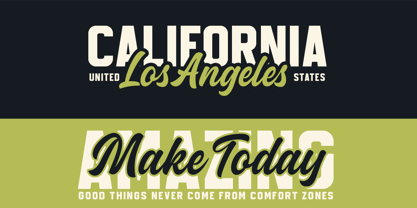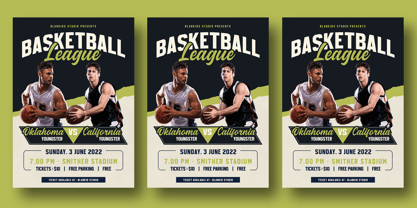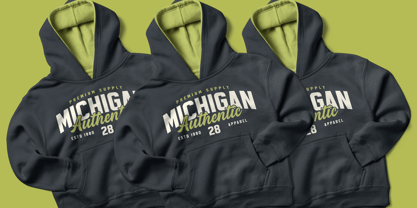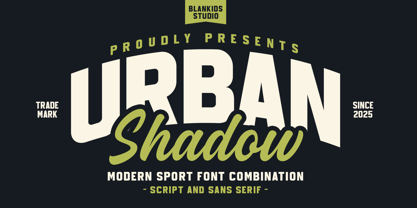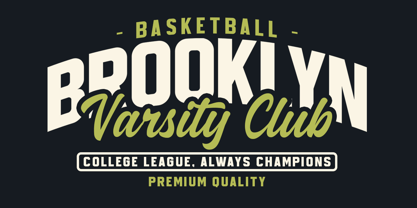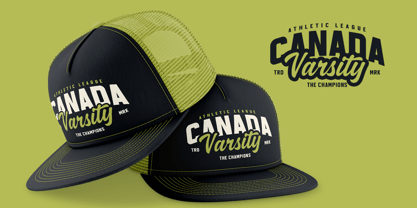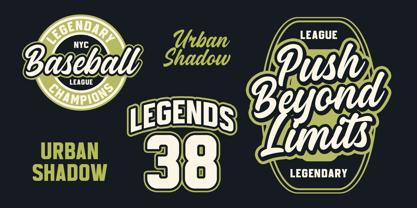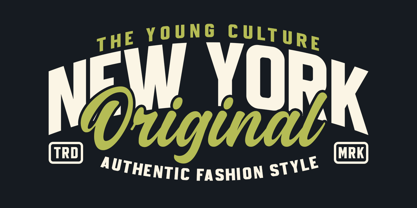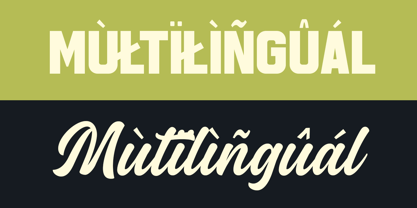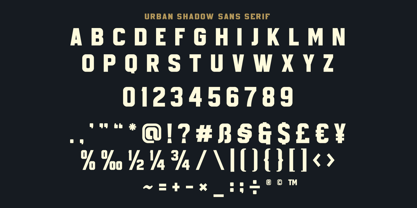
Urban Shadow
by Blankids
The Urban Shadow Font Family was designed by Bangkit Tri Setiadi and published by Blankids. Urban Shadow contains 2 styles and family package options. More about this family
Hello, awesome people! This time, we have a new font called Urban Shadow a Modern Sport Font Combination by Blankids Studio.
Urban Shadow a Modern Sport Font Combination is made for any professional project branding, such as logotype, watermarks, poster, branding, promotions, product packaging, etc. Every letter has a college sporty and varsity style design. This font comes in 3 font (sans serif and script).
Urban Shadow font includes a full set of varsity college sporty uppercase and lowercase letters, numerals and punctuation. This font has a modern sporty style. See the previews above to get some inspiration on how to use them. Happy designing!